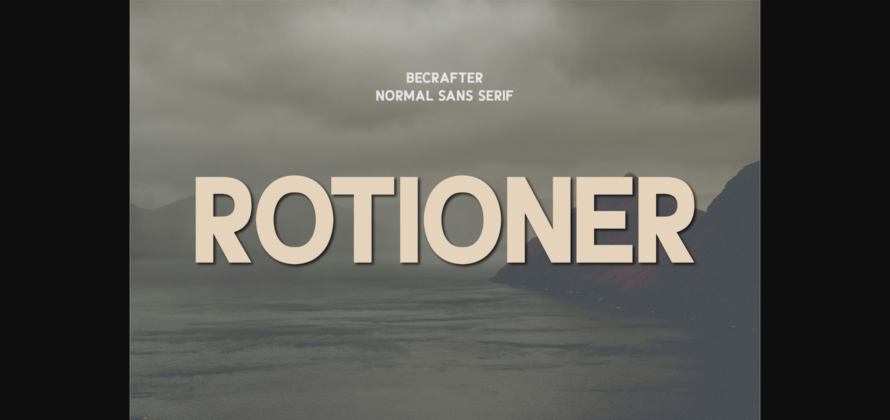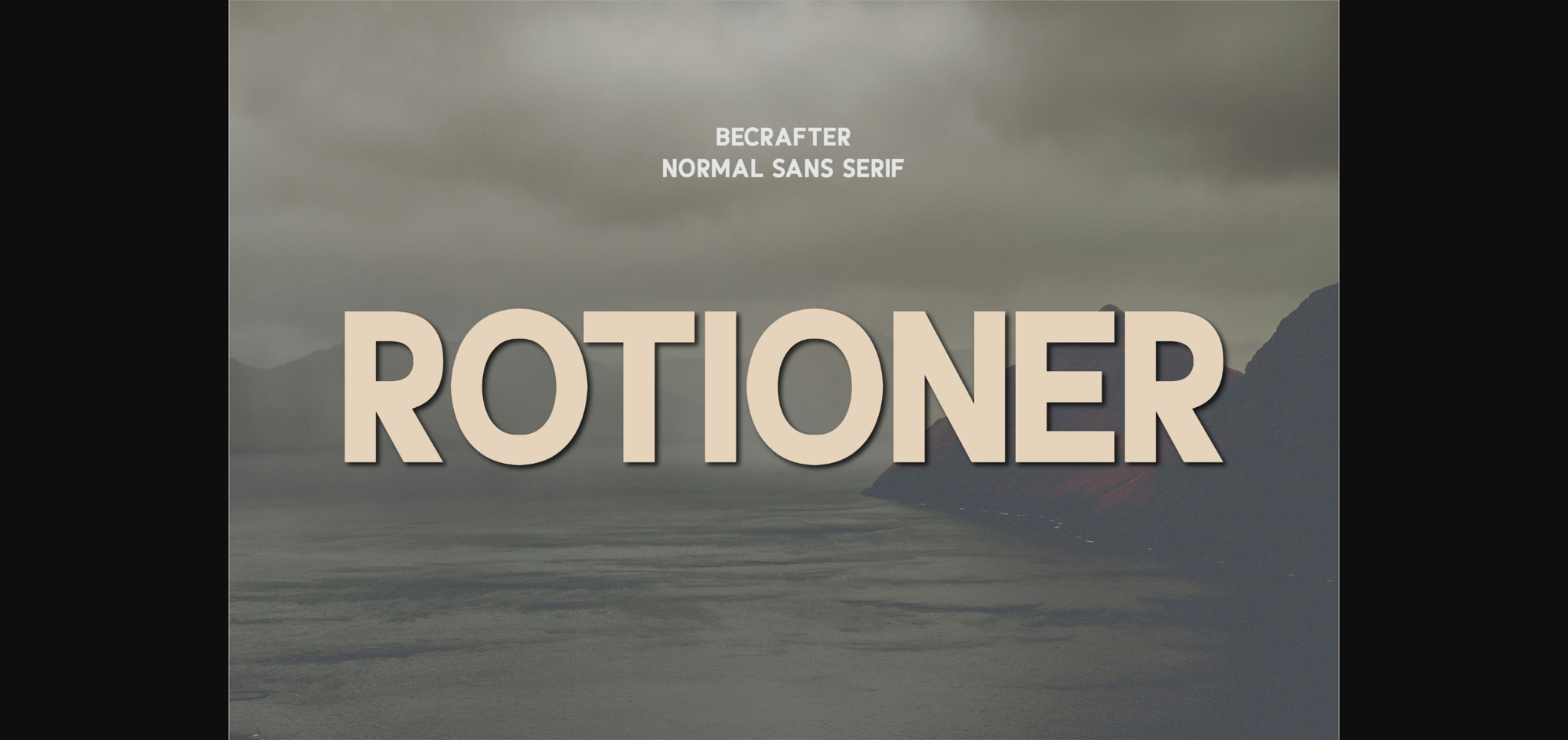
About Rotioner Font
Introducing Rotioner, a distinctive sans-serif font crafted with superior precision that boasts bold character and sleek sharp edges. Accommodating both .ttf and .otf file formats, Rotioner lends itself perfectly to a multitude of artistic applications. Whether you’re looking to elevate your magazine layout, create captivating invitations, inspire with profound quotes, or construct standout headers, Rotioner promises to inject an element of extravagance into your designs, ensuring your work never goes unnoticed.